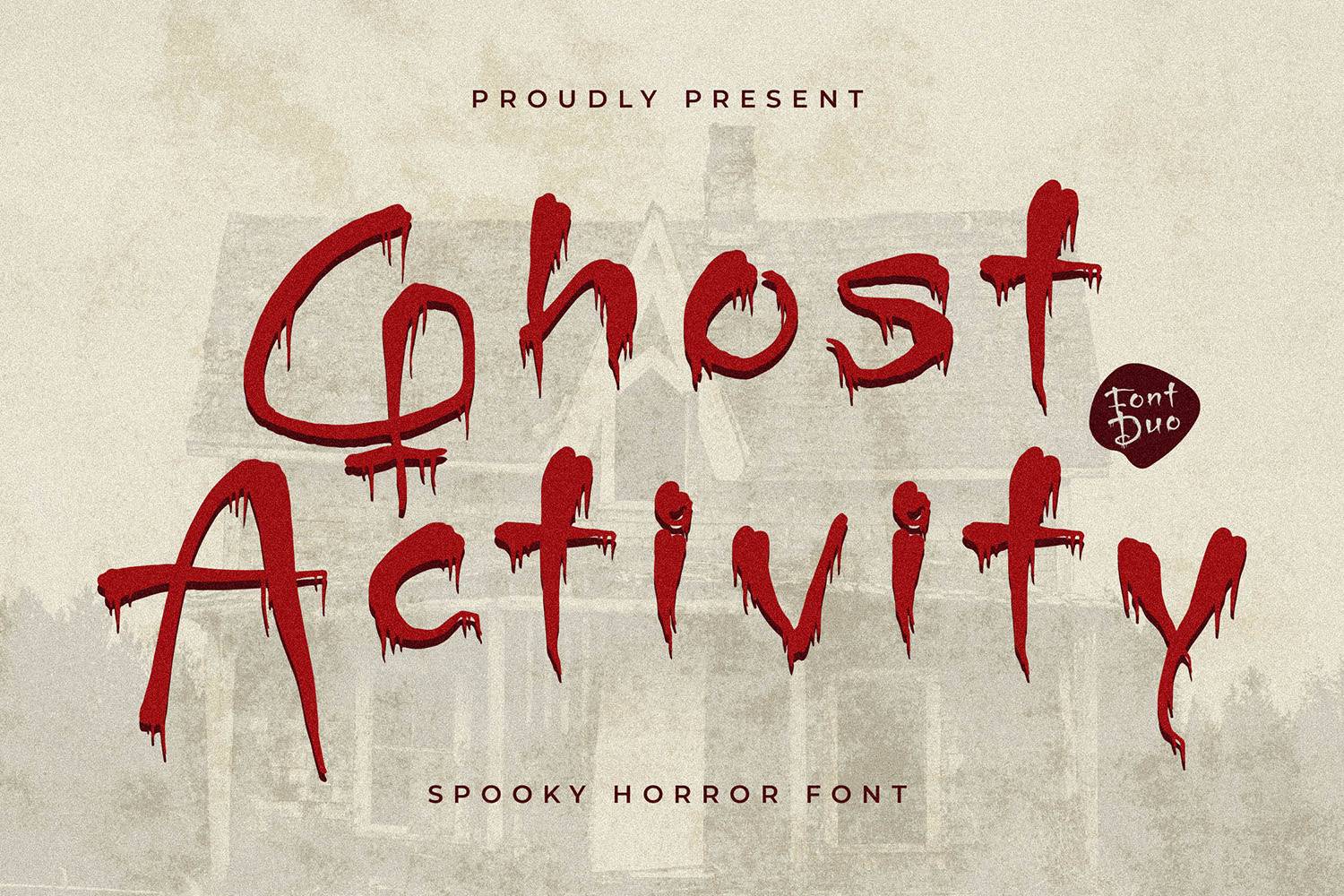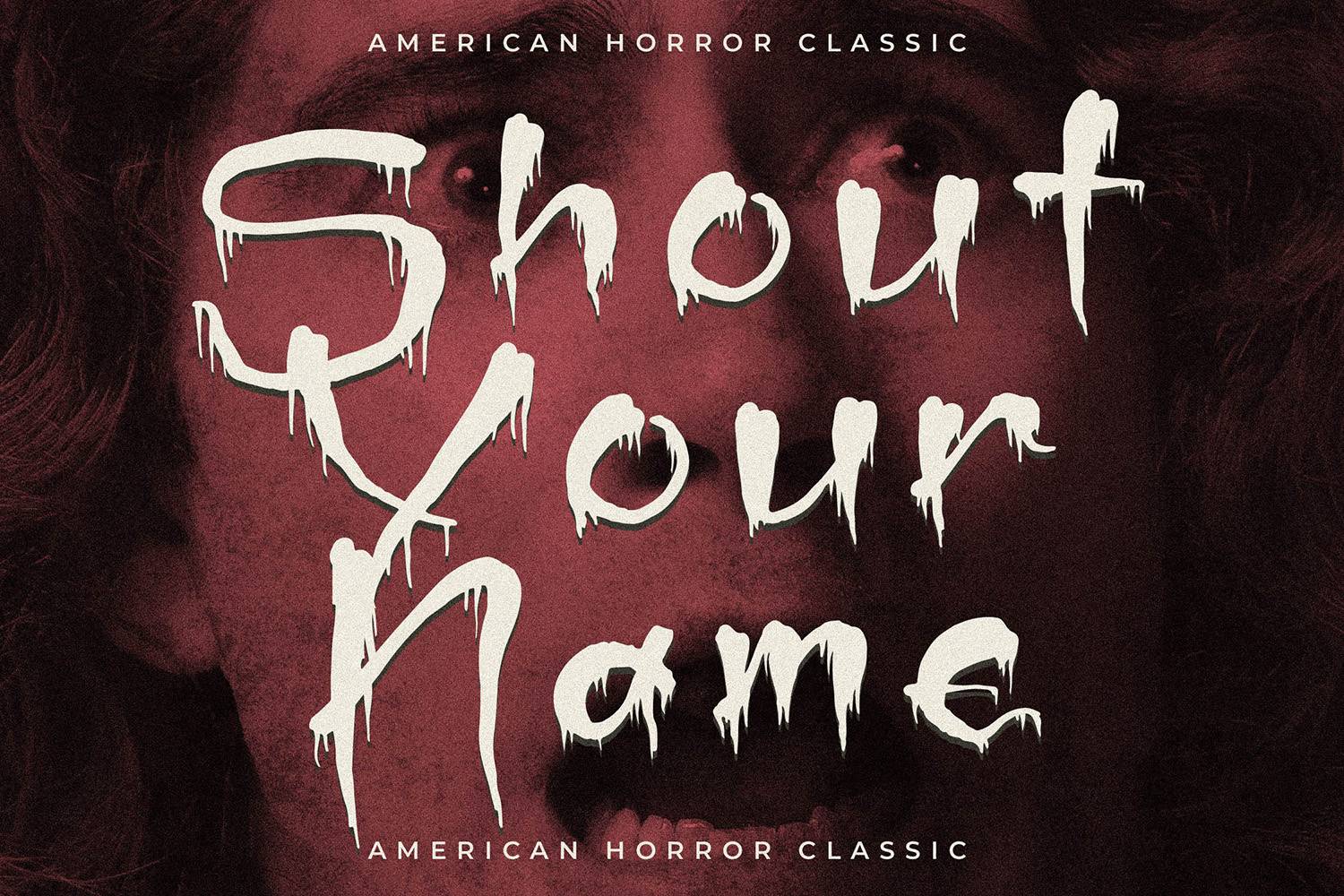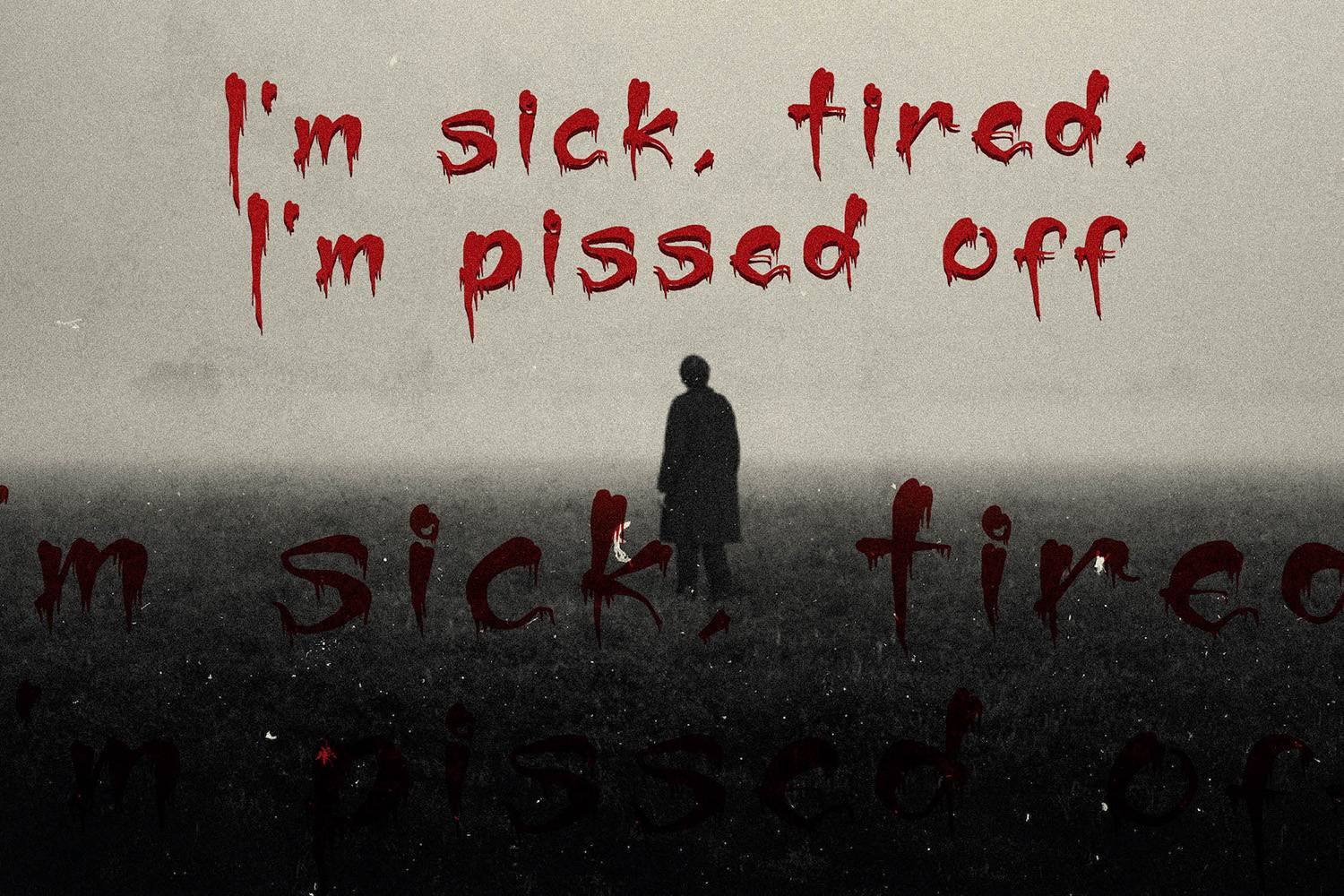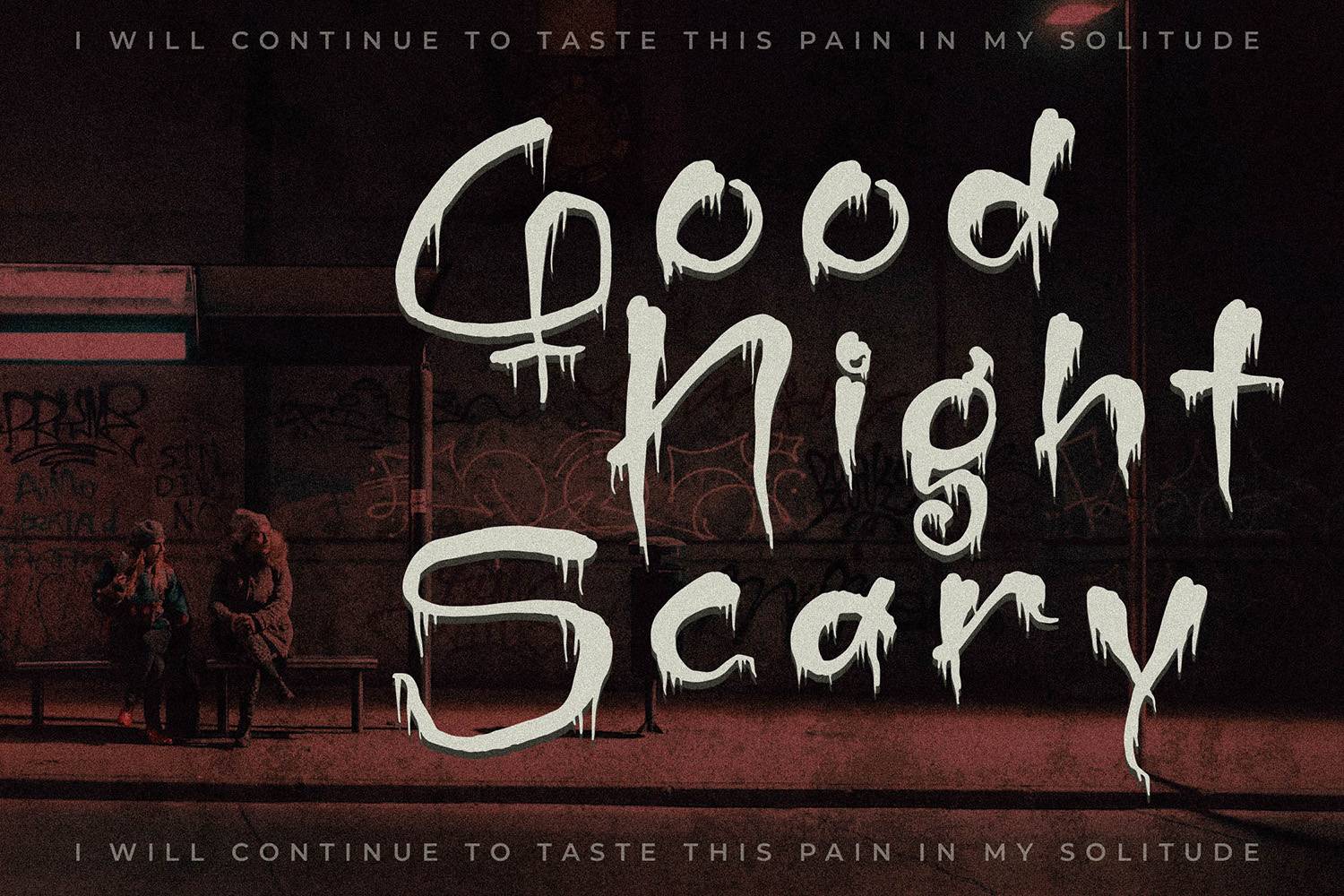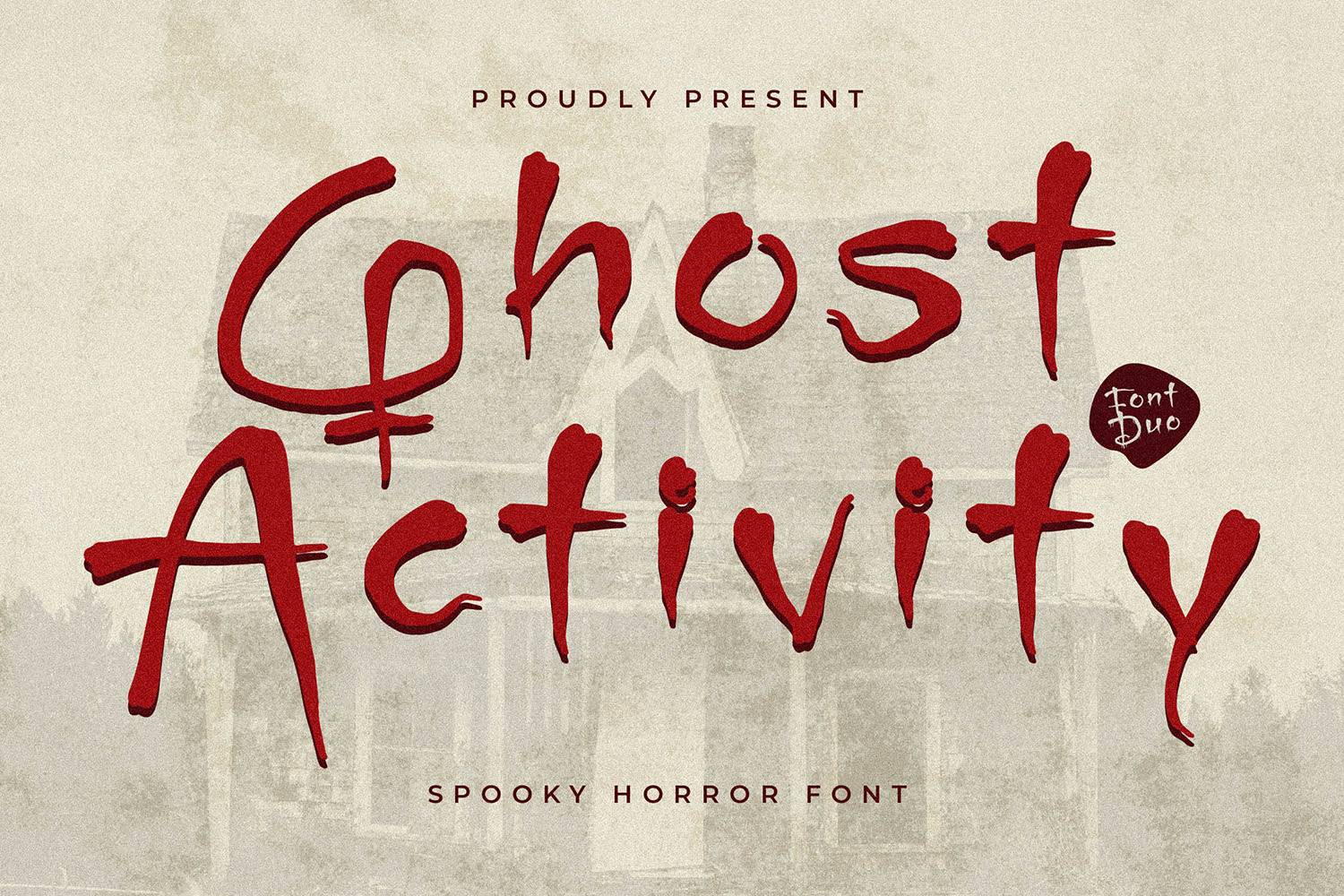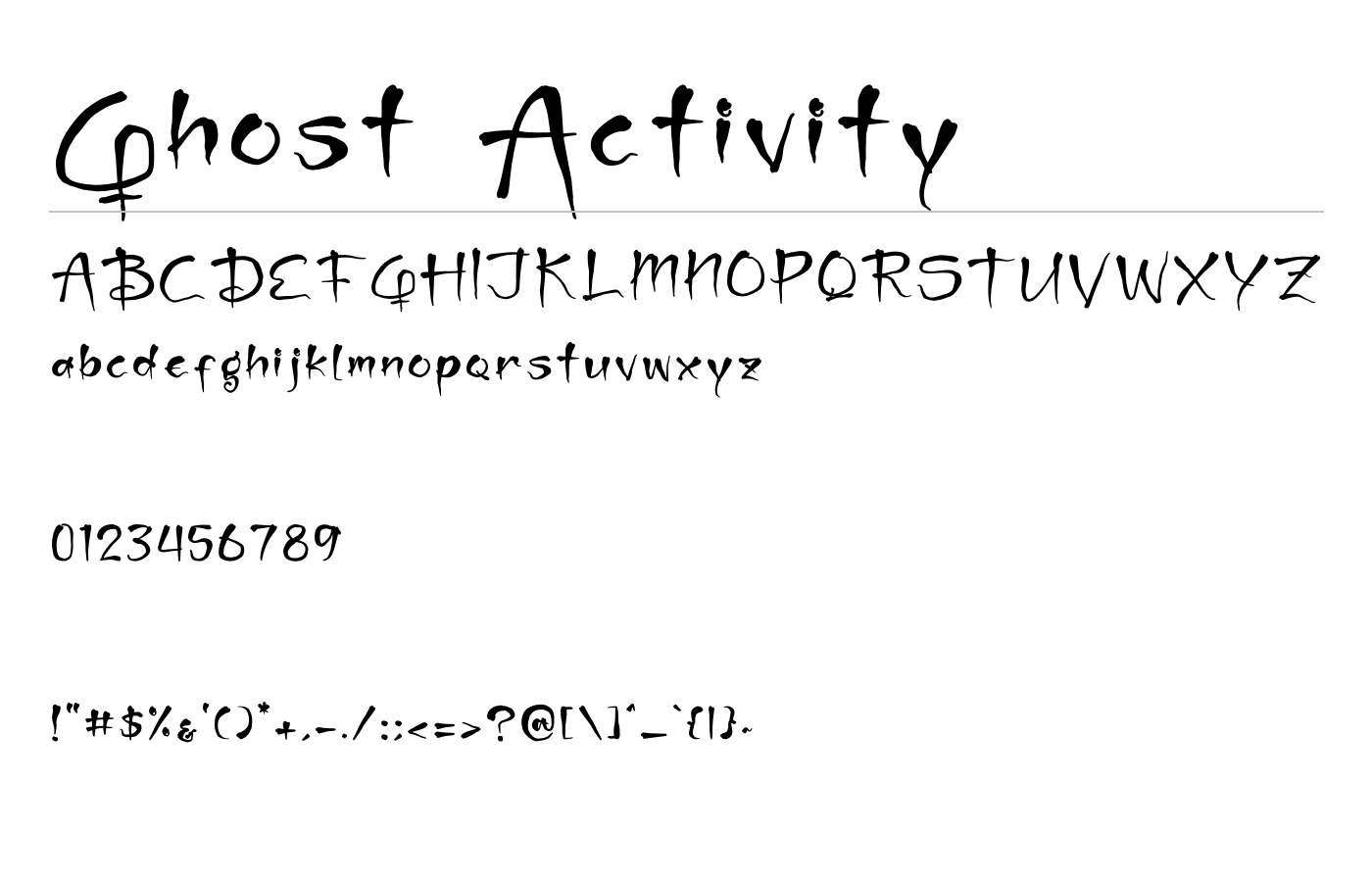
Ghost Activity is a unique handwritten font that features irregular, uneven strokes with a slightly spooky, whimsical vibe. Its narrow, lightly textured letterforms combine casual charm with an eerie personality, making it ideal for Halloween themes, playful branding, or creative projects needing a hand-drawn, mysterious touch. This font works best in titles, posters, and designs that benefit from an informal yet distinctive look.
Ghost Activity Font
About Ghost Activity Font